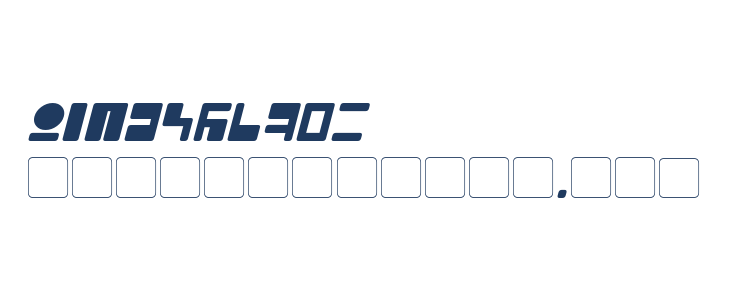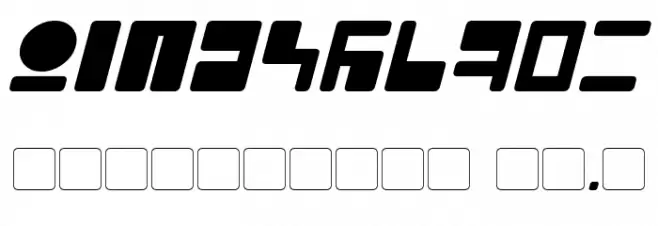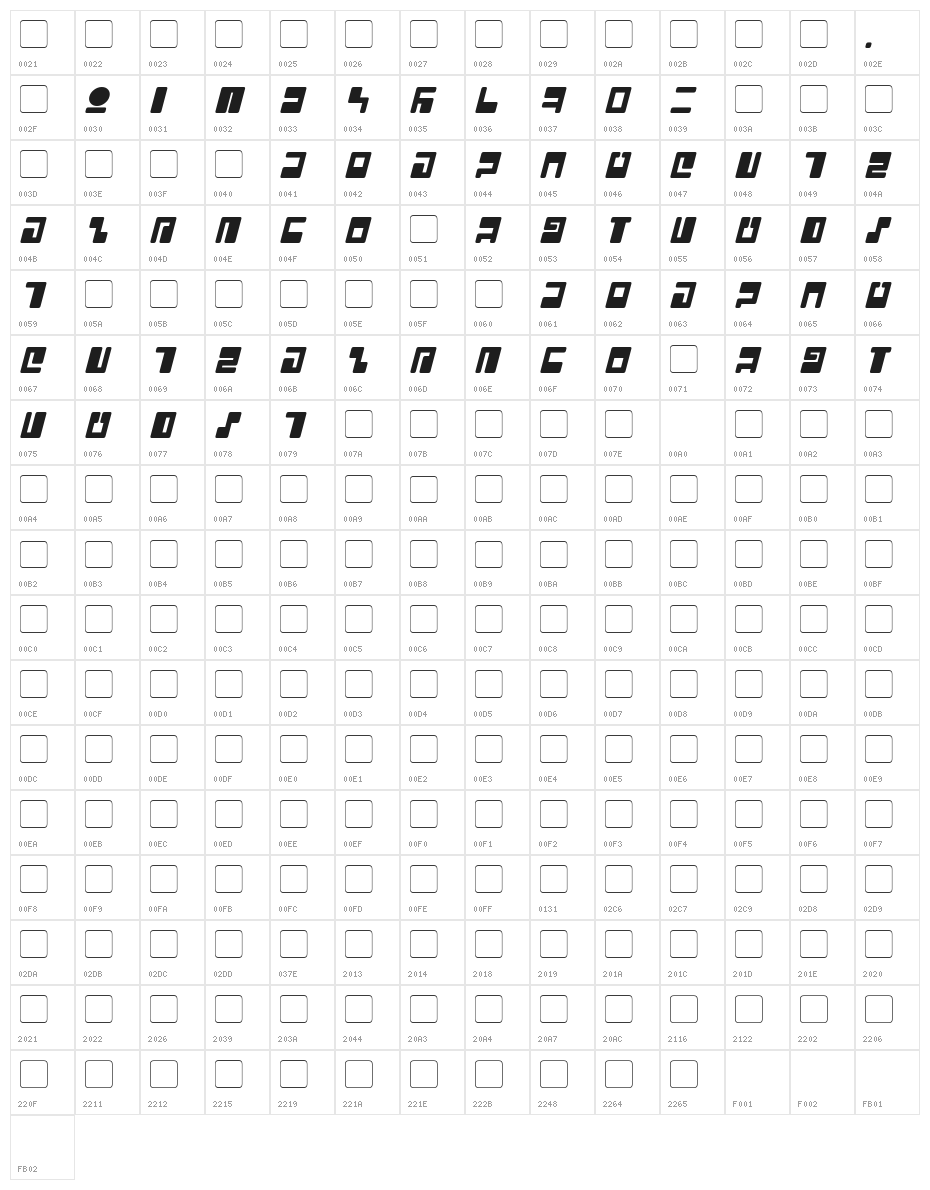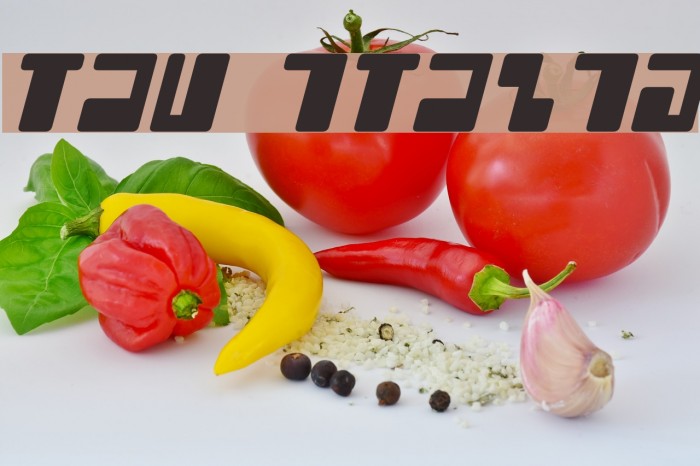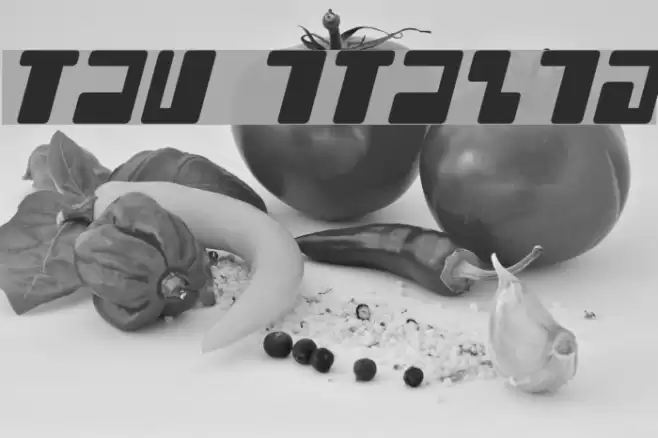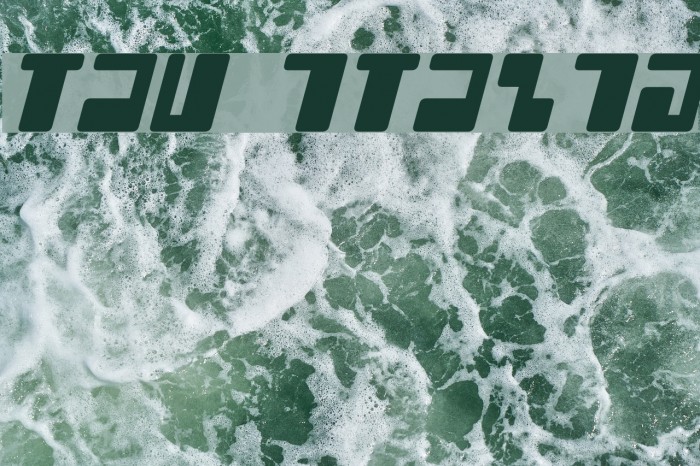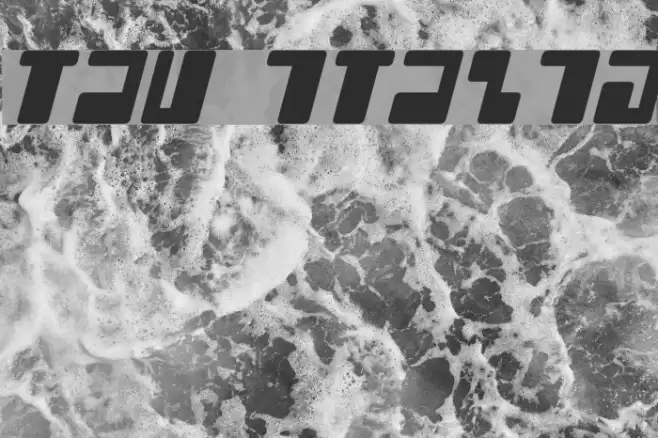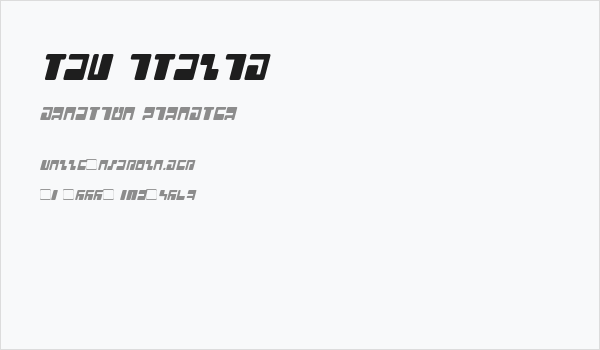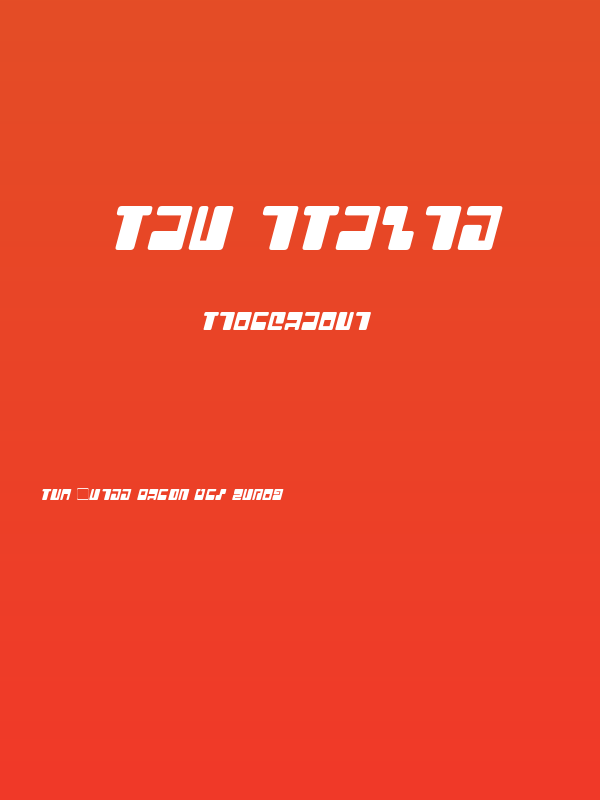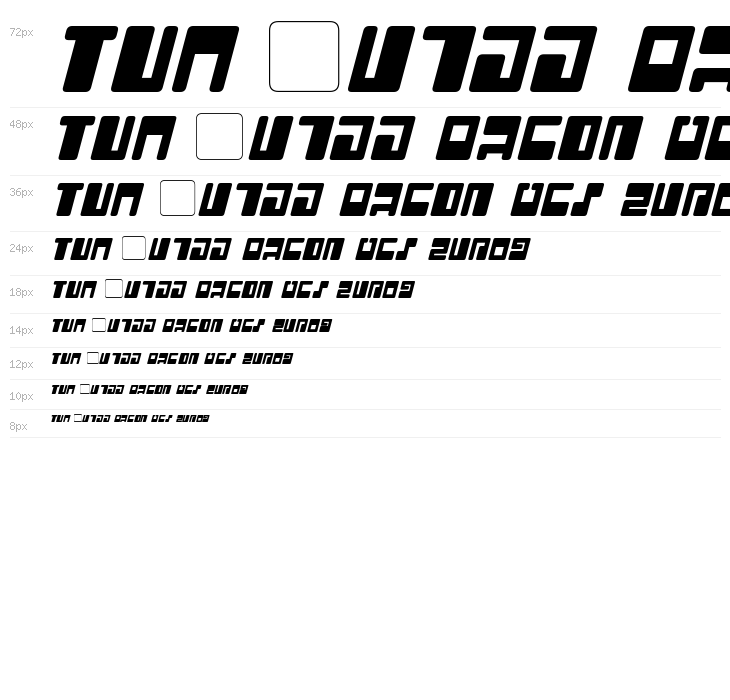
Tau Italic Font
Tau Italic Description
This font features a futuristic and geometric design with bold, angular shapes. The characters are heavily stylized, with a consistent slant that gives a sense of motion and dynamism. The uppercase and lowercase letters share a similar structure, emphasizing uniformity and cohesion. The numbers and special characters are designed to match the overall aesthetic, maintaining the same boldness and angularity. This font is ideal for projects that require a modern and edgy look, such as technology branding, sci-fi themed designs, or video game interfaces.
| Use Case | Logos, Headlines |
| Proposed Projects | Ideal for tech branding, sci-fi themes, and video game interfaces. |